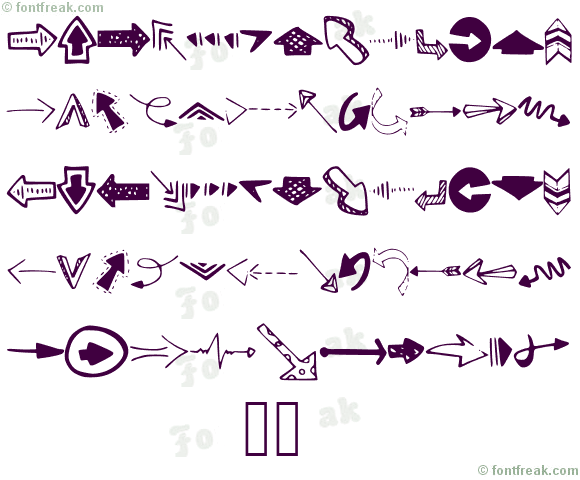
MixDirections
MixDirections, designed by Mikko Sumulong, is a captivating display font that embodies a unique blend of creativity and artistic flair. This font features a decorative style, showcasing an array of geometric shapes and dynamic lines that create a sense of movement and direction. The strokes exhibit varied weights, offering an engaging contrast that enhances its visual appeal. The spacing is thoughtfully crafted to maintain clarity while allowing each character to stand out, making it perfect for attention-grabbing designs.
Ideal for use in various creative projects, MixDirections excels in applications such as wedding invitations, where its artistic flair can add a touch of elegance. It's also well-suited for movie posters, allowing designers to create striking visual narratives. Additionally, this font can elevate restaurant menus, providing a memorable dining experience with its unique character. Small business owners and content creators will find it a valuable asset for branding materials, as it effectively conveys personality and creativity.
The target audience for MixDirections includes graphic designers seeking to add a distinctive touch to their work, as well as small business owners looking to differentiate their brand. Content creators aiming to enhance their visual storytelling will also benefit from the font's dynamic qualities.
What sets the MixDirections font apart is its ability to merge artistic expression with functionality. It stands out as a versatile typeface that can adapt to various themes while maintaining its unique aesthetic. With its availability as a freeware, designers can easily access the MixDirections font free download, making it an excellent choice for anyone looking to infuse their projects with originality and style.